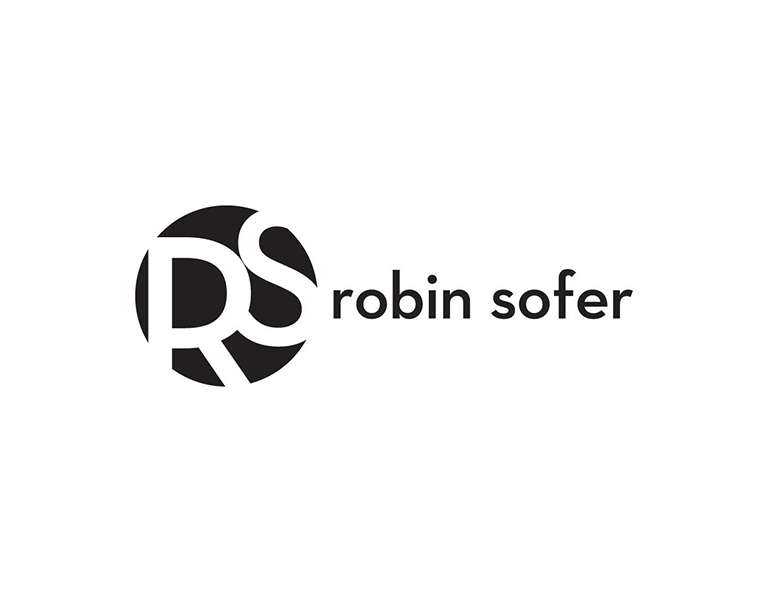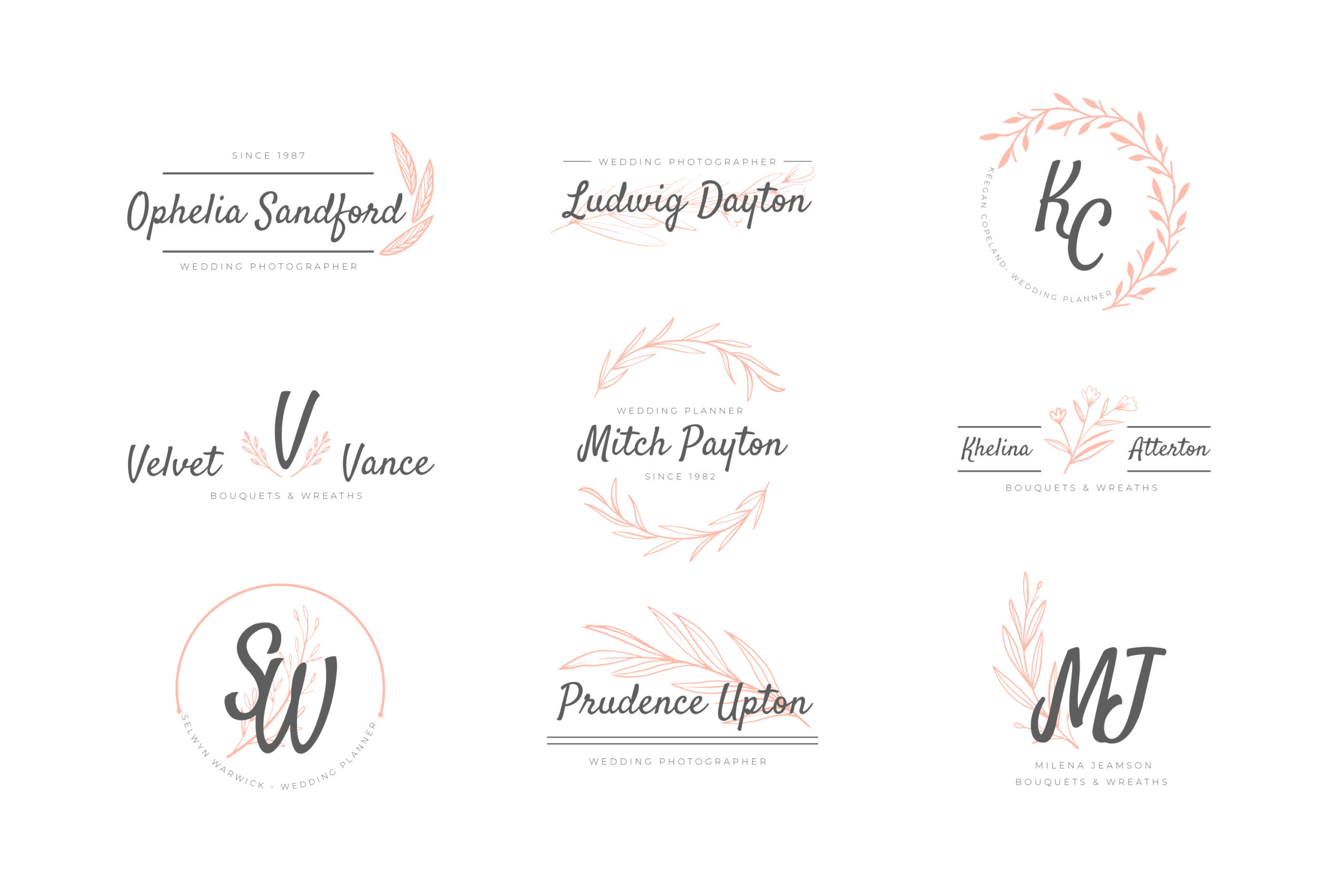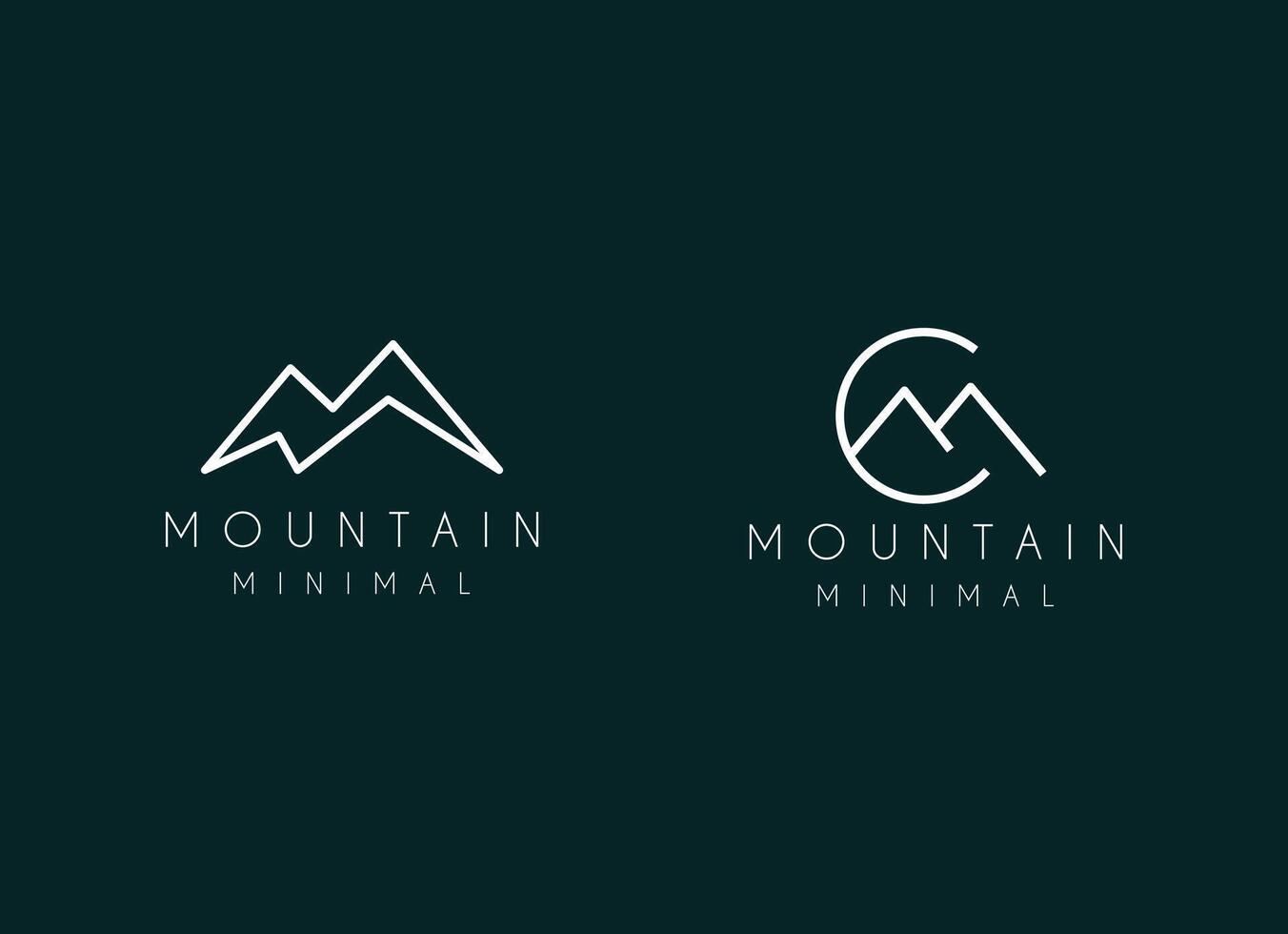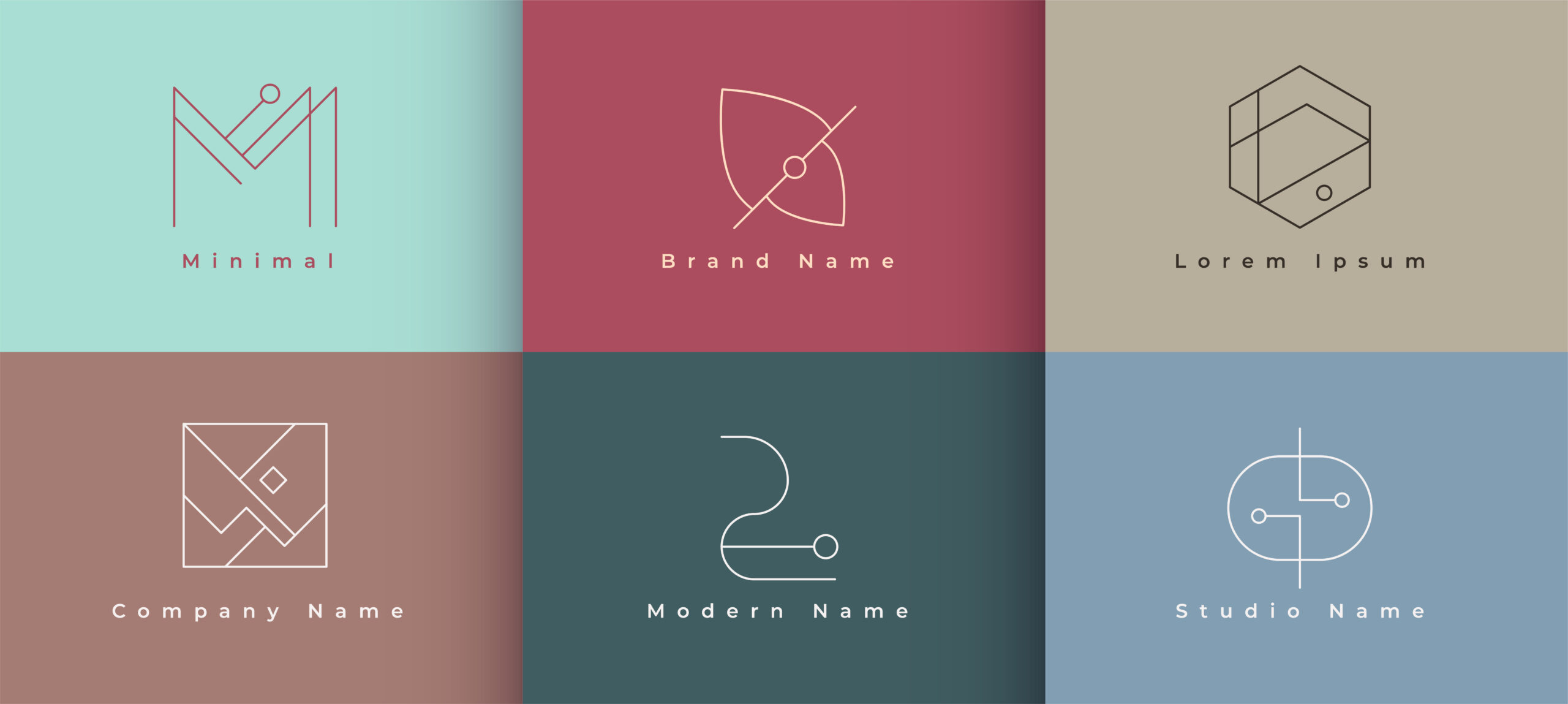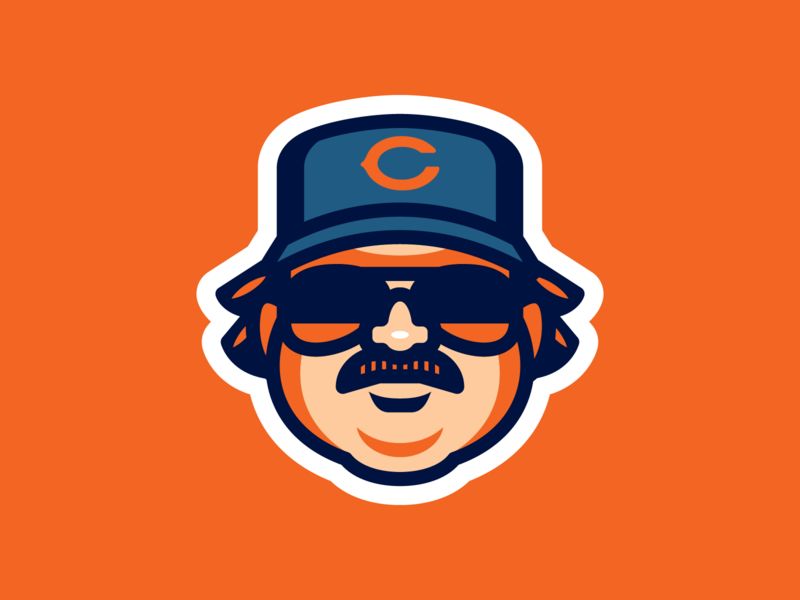
Personal Logo Design: Building Your Visual Identity with Purpose
A personal logo has become more than just a decorative mark for professionals. It’s now an essential part of personal presence, a statement of identity to build online presence as well. A well-crafted logo visually communicates who you are, what you do, and what you stand for.
Visual symbols shape how audiences perceive a person long before they read a single word. Therefore, for creative professionals, it’s the face of your brand, an emblem that reflects your essence.
What Is a Personal Logo and Why Does It Matter
A personal or individual logo is a stylish mark beside your name that visually represents your identity, values, and professional essence. Unlike corporate logos, which symbolize a company or product, an individual logo serves as a signature of individuality.
It helps professionals establish a recognizable personal brand in an increasingly competitive digital space. Furthermore, this logo even helps your persona appear consistent, memorable, and trustworthy in every interaction.
Why You Need a Personal Logo for Your Brand
According to a 2024 report by Lucidpress, consistent branding can increase revenue by up to 23%. A personal logo ensures that every piece of your visual presence communicates the same cohesive message. Here’s why building one matters.
• Recognition: Your name becomes a symbol that clients can instantly associate with your work or values.
• Professionalism: A sleek logo elevates your profile, whether you’re a freelance writer, consultant, or digital artist.
• Trust: Consistency in visuals and tone builds familiarity, which psychologically fosters reliability.
• Memorability: Just like big brands, individuals with distinctive logos are more likely to stay in people’s minds.
5 Key Elements in Crafting an Effective Personal Logo
Designing an individual logo is both creative and strategic. Every visual choice should align with your personality and field. Below are the core elements you should consider.
1. Symbol or Icon
Choose a symbol that resonates with your profession or values. For example, a minimalist pen icon for a writer, a lens for a photographer, or abstract geometry for a designer.
2. Typography (Font)
The font defines your tone. Serif fonts convey professionalism and tradition, while sans-serif fonts suggest modernity and clarity. Handwritten or script fonts can express creativity and warmth.
3. Color Palette
No debates that in a design context, colors evoke emotions. For instance, blue suggests trust, red conveys passion, and green represents balance.
4. Shape and Layout
Circular logos imply unity, rectangles suggest stability, and dynamic diagonal layouts communicate motion or progress.
5. Balance and Scalability
Ensure your logo remains recognizable even when resized for smaller applications, such as social media icons or email signatures.
5 Inspirational Personal Logo Examples
Get some inspiration from the following 5 inspiring examples of creative personal branding logo ideas.
1. Monogram Logos
Monogram-style personal logos combine initials into a cohesive mark, creating a refined and professional look. Initials are easy to remember and visually compact. This type works best for individuals who want to emphasize name recognition, like photographers, lawyers, or consultants.
Example inspirations are “LV” (Louis Vuitton) and “HG” (Helen Green Design).
2. Signature Logos
A signature-style mimics handwriting to express authenticity and character. It’s ideal for creatives such as illustrators, writers, or coaches who want to feel approachable and human. The fluid motion of script fonts adds artistic softness, ideal for personal brands that value creativity over formality.
3. Icon-Based Logos
This type uses a meaningful visual symbol, such as a pen, camera, or abstract geometric shape, to represent what you do or stand for. Icon-based logos often combine an emblem with clean typography. The reason this type works well is that the cons symbol communicates faster than text.
4. Minimalist Logos
Minimalist logos use simplicity to achieve elegance. They strip away unnecessary details, focusing instead on space, proportion, and subtle typography. This style is perfect for professionals in tech, design, or consulting who want to appear modern and focused.
A single line forming your initials, or a soft sans-serif type treatment with neutral colors, is one of the minimalist personal logo ideas for professionals.